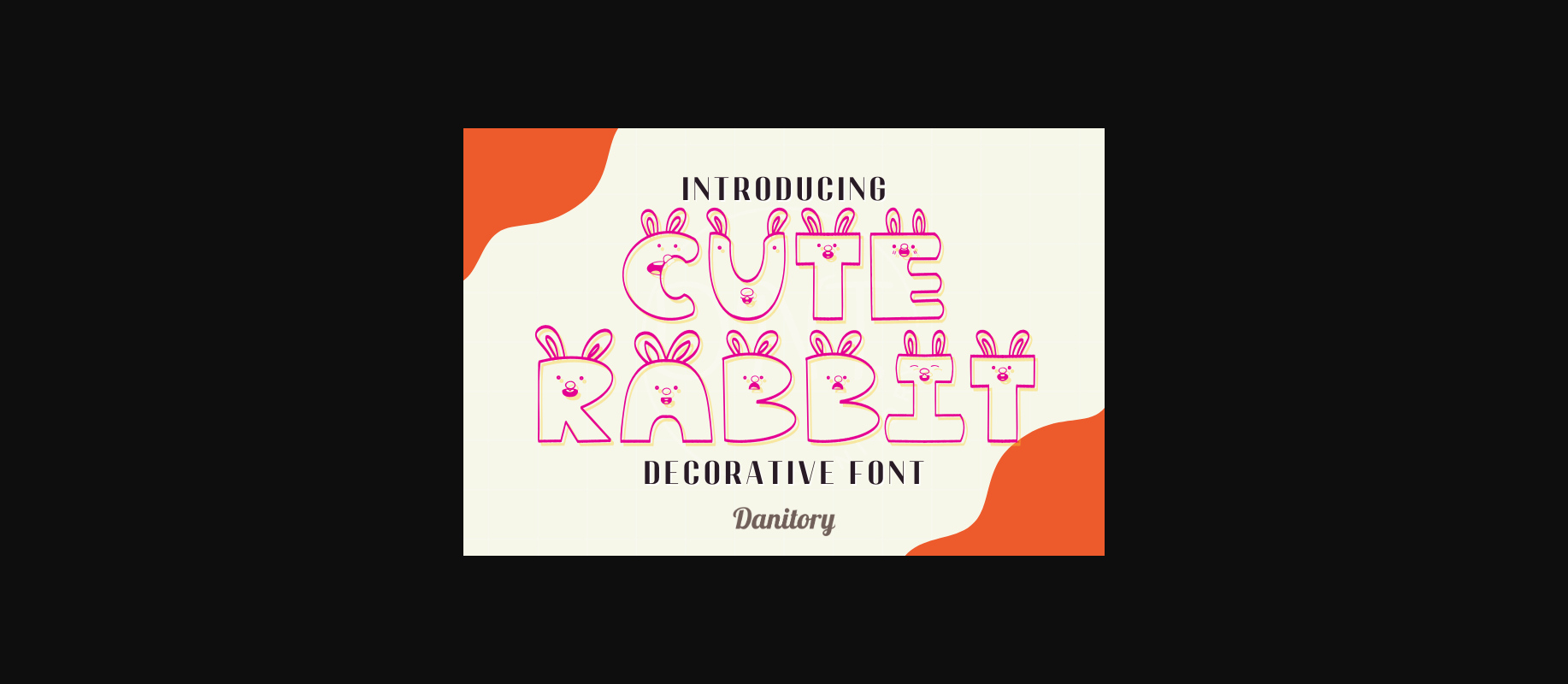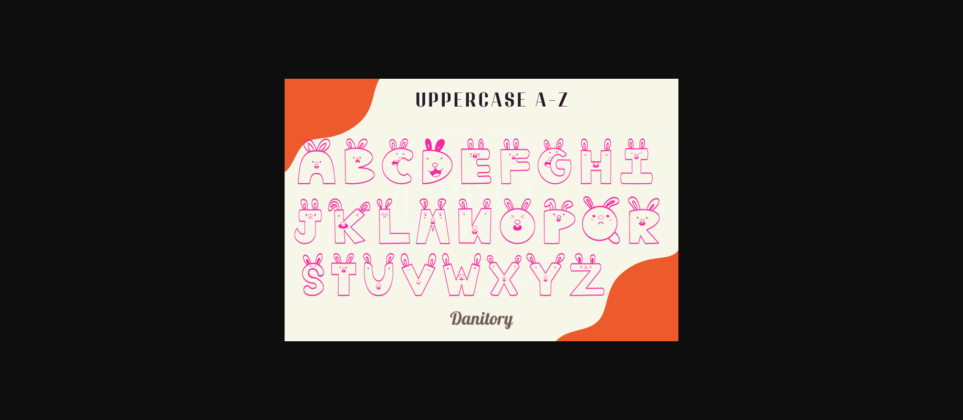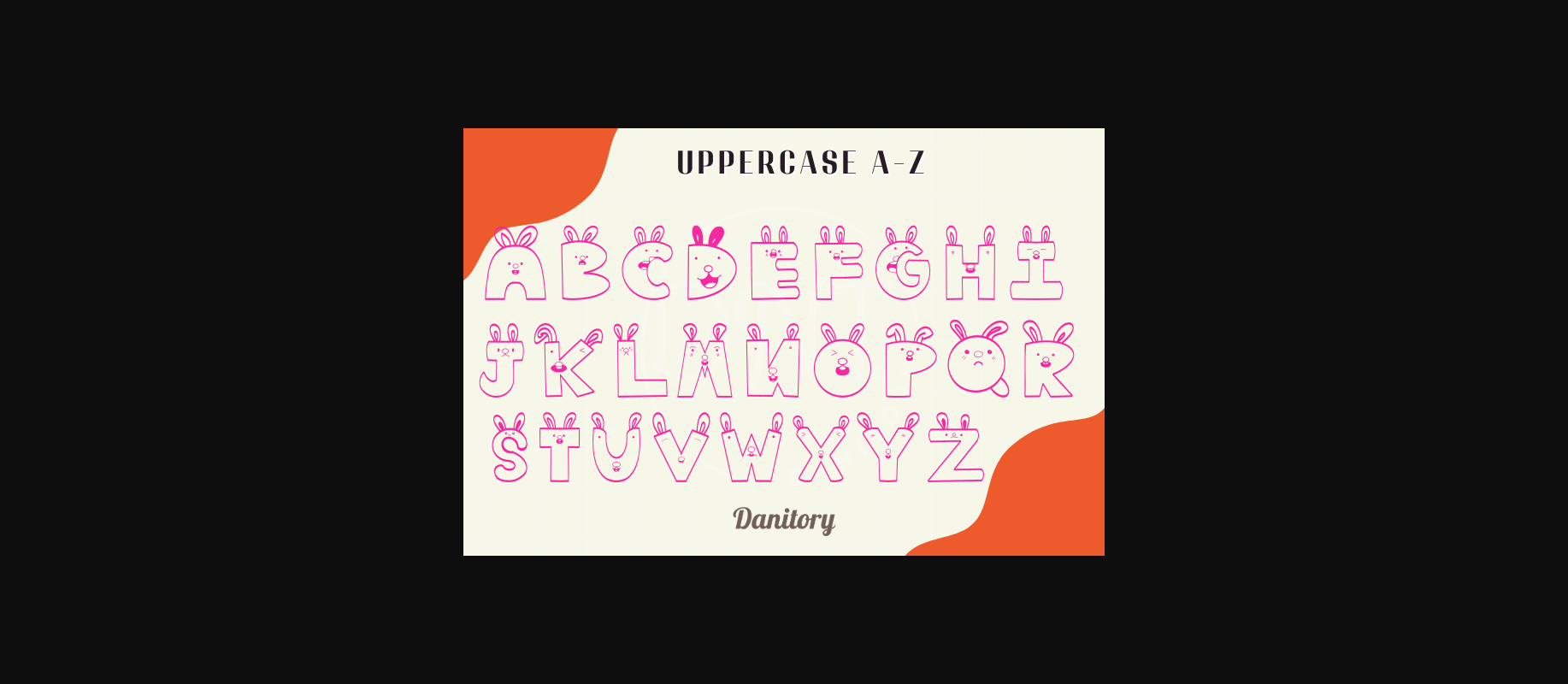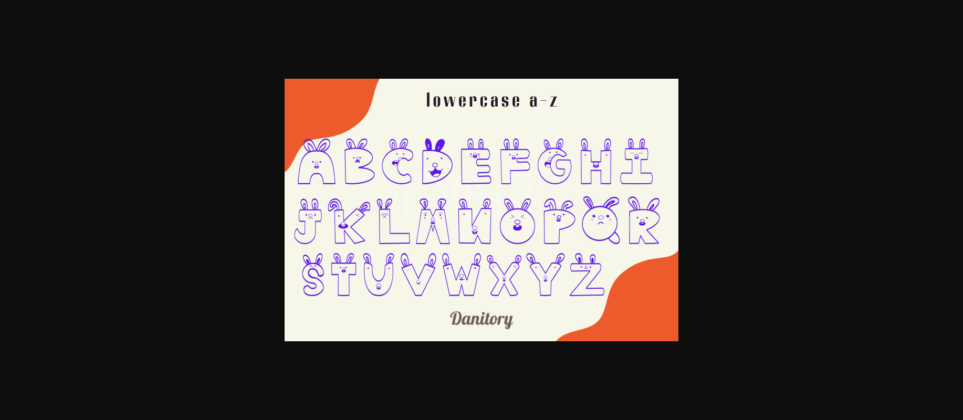
About Cute Rabbit Font
The Cute Rabbit this Easter is a decorative typeface. It is hand-drawn, cute, and suitable for the upcoming Easter season. You can use this font to design your products such as mugs, T-shirts, presentations, worksheets, and other digital media.